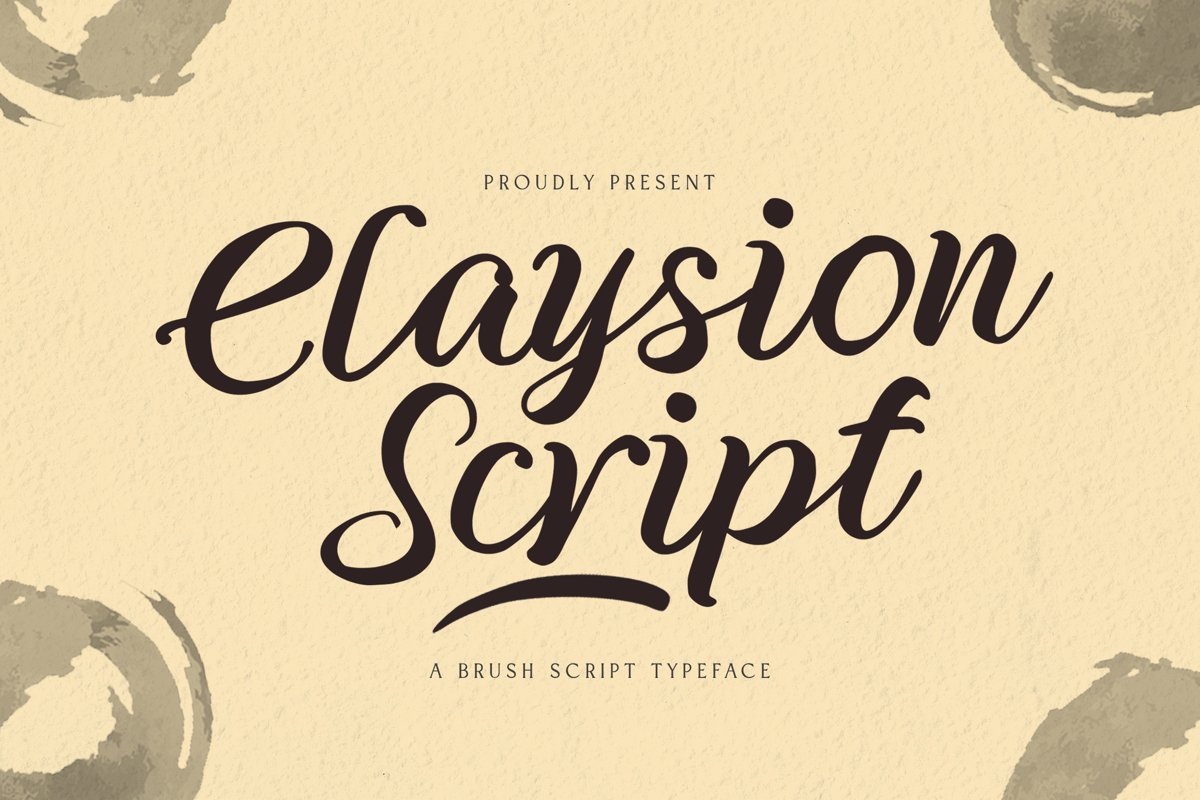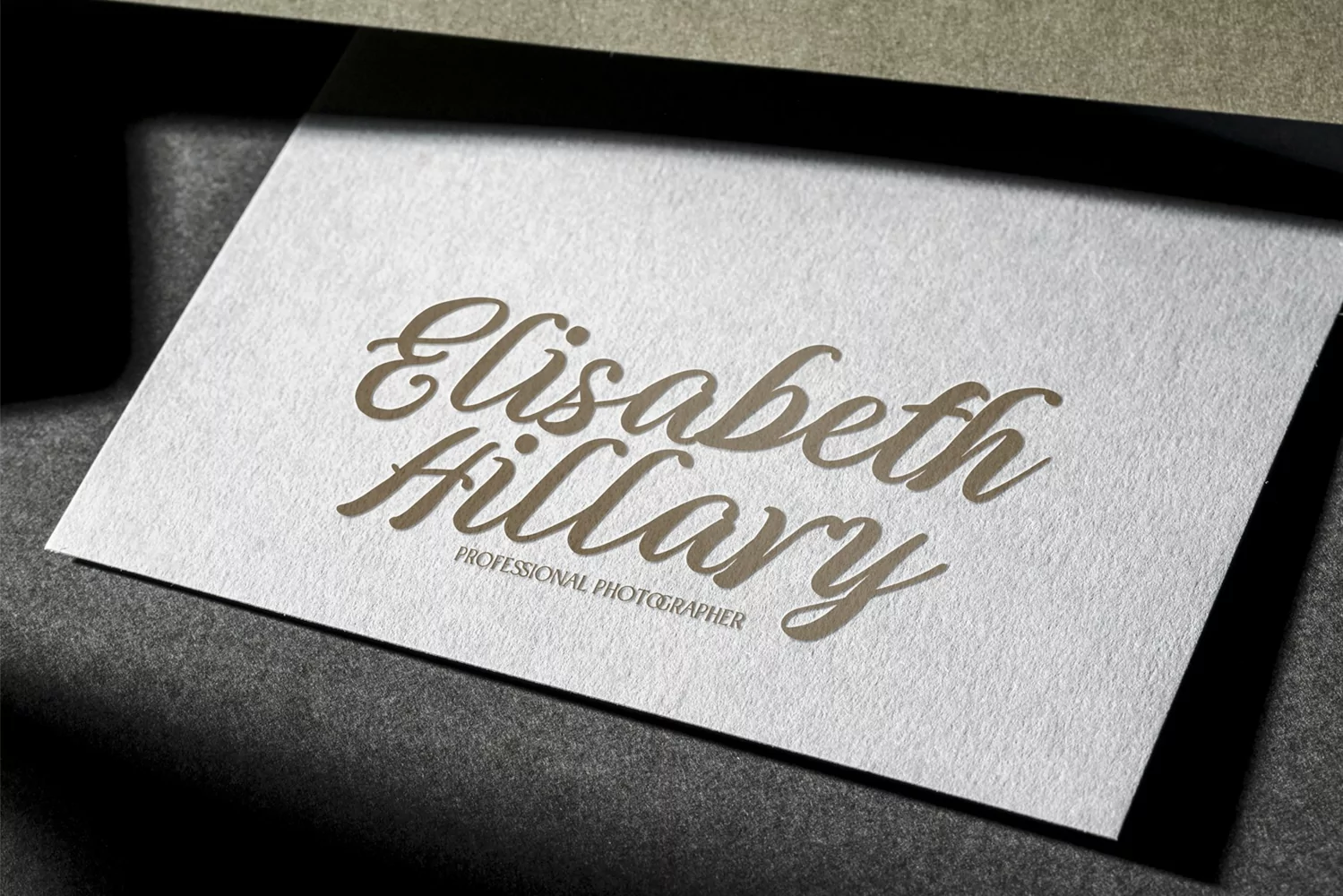
Claysion is a brush script typeface. Perfect for display, quotes, product, branding, logo, logotype, emblem, business card, packaging, merchandise, header, tittle, invitation card and many more.